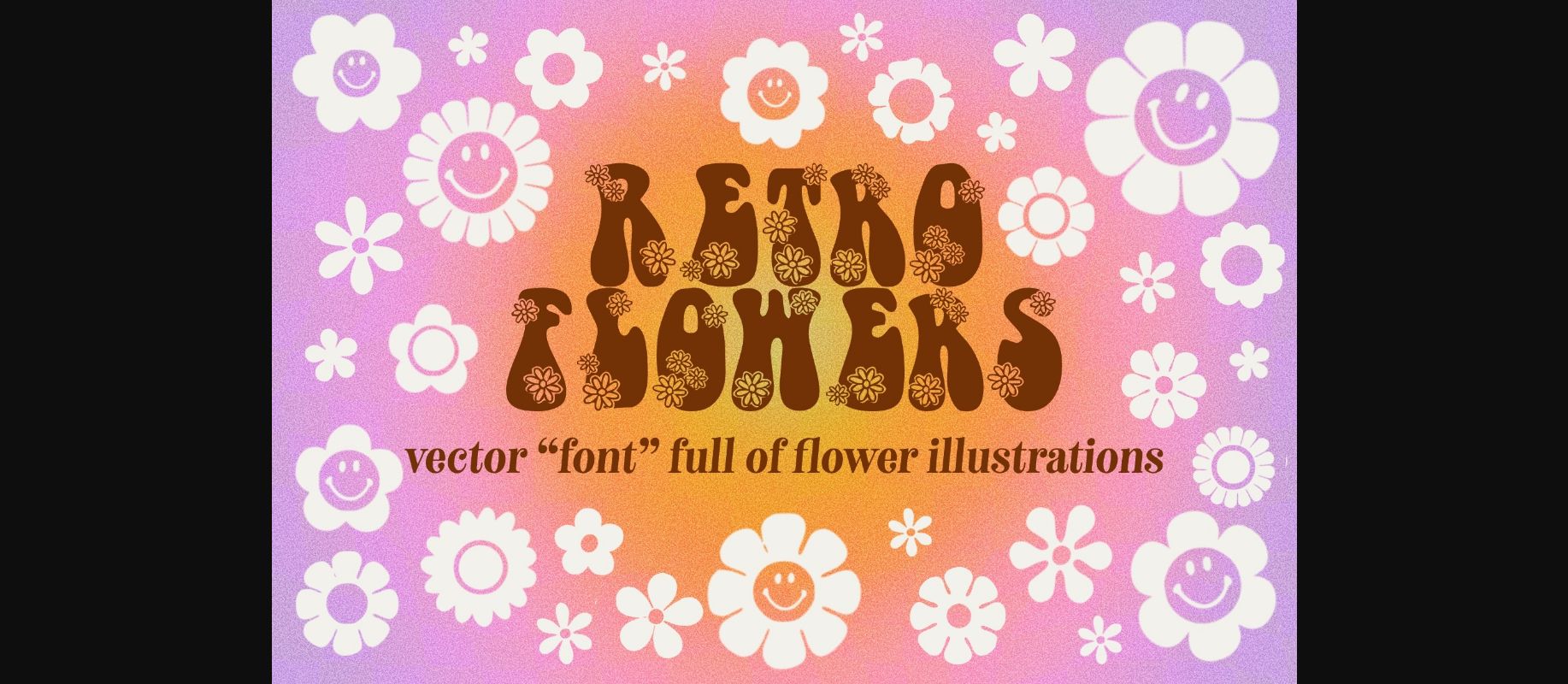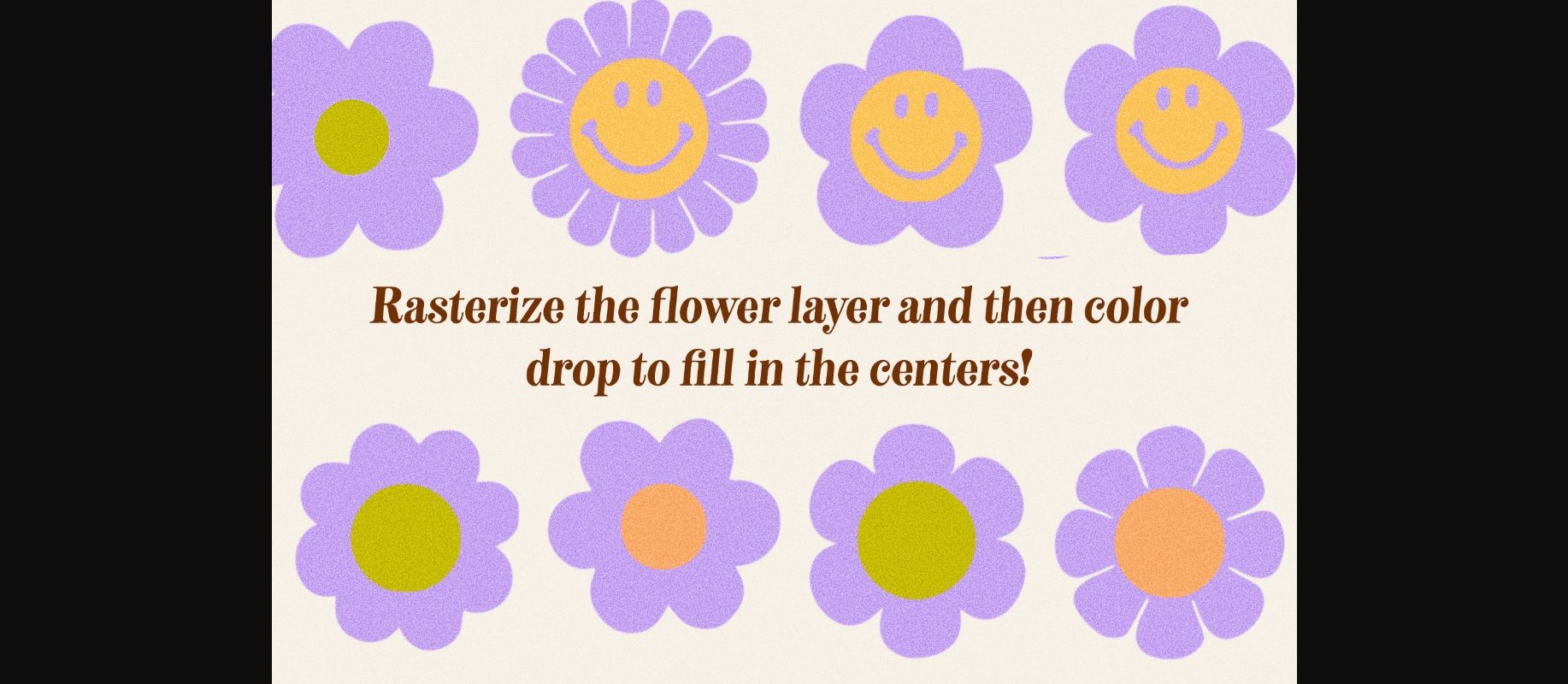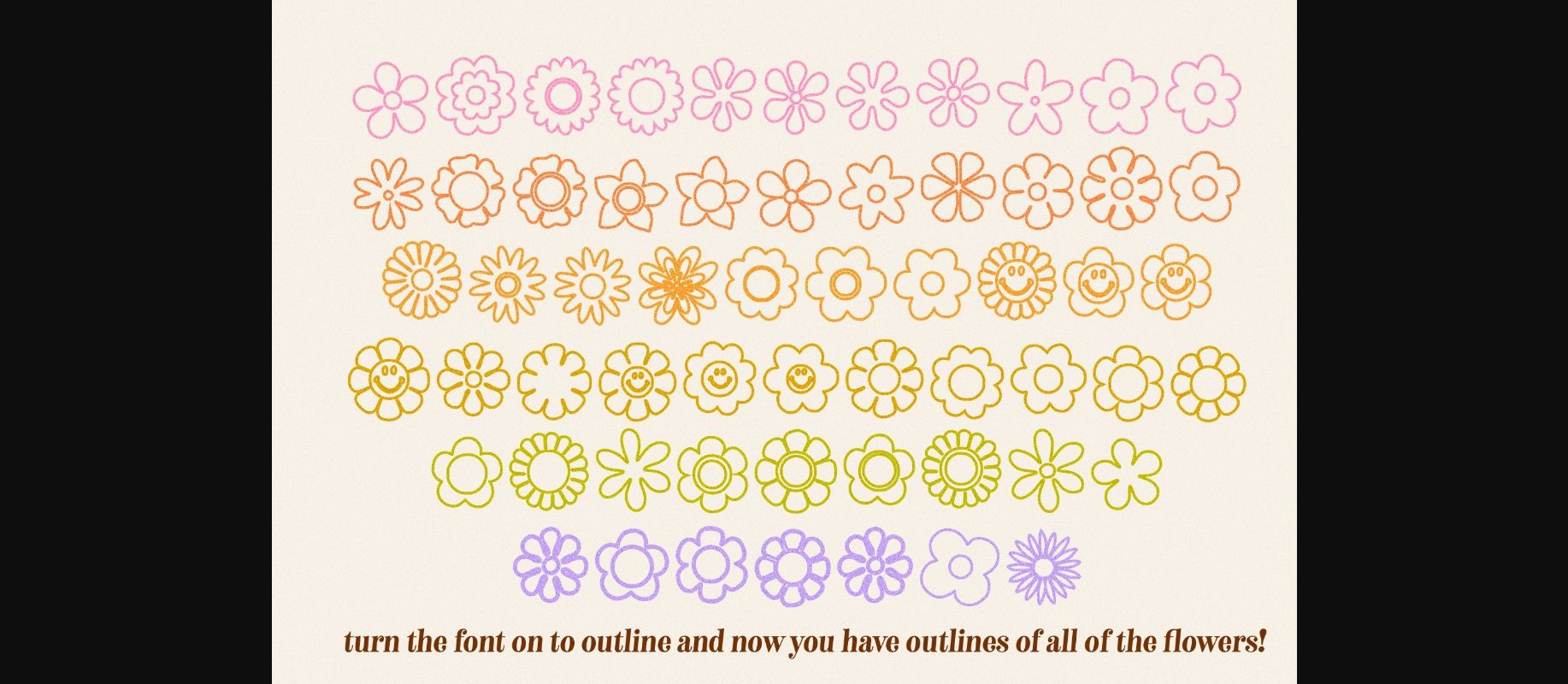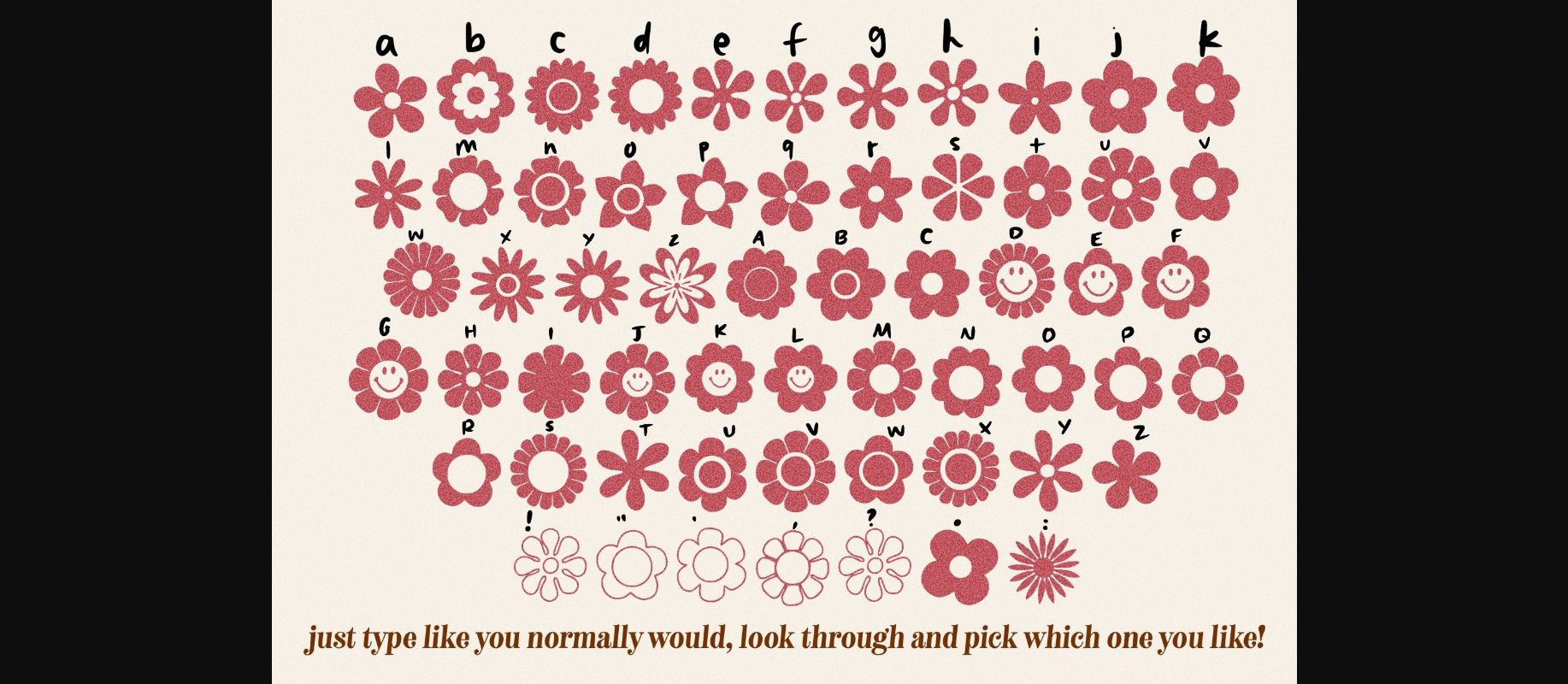
About Retro Flowers Font
This decorative font transports you back to the golden era of the 1960s, with its bold, playful letterforms and retro styling. The curvy lines and exaggerated flourishes create a sense of fun and nostalgia, making it perfect for vintage-themed designs, advertising, and branding projects that require a touch of personality and charm.